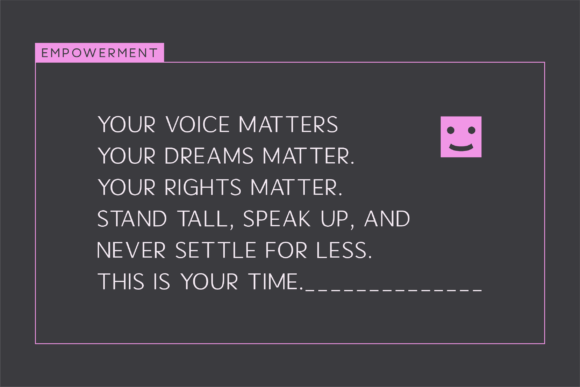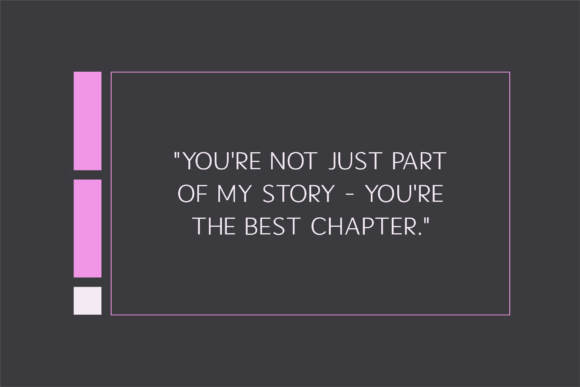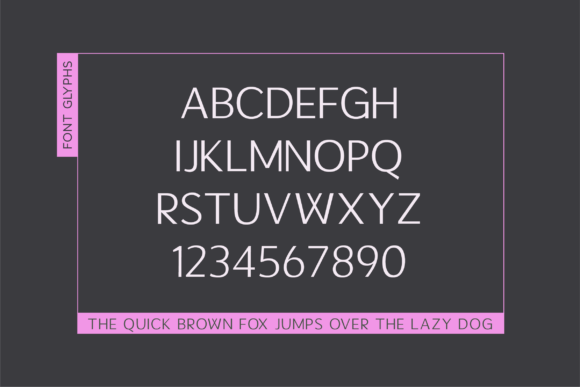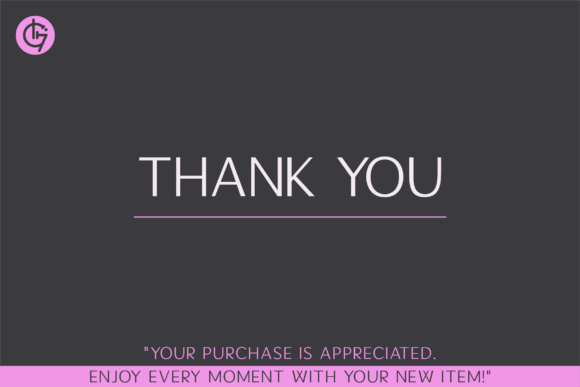
Introducing Debeaute – A Modern Sans Serif Typeface
In the world of typography, a good font can make all the difference in the success of a design project. For designers and crafters looking for a bold, modern, and professional typeface, Debeaute is an excellent choice. This all-caps sans serif font is designed to make a statement with its clean lines, minimalist aesthetic, and strong geometric structure.
Design and Features
Debeaute boasts a bold, all-caps design that exudes strength and authority. Its clean lines and minimalist style make it perfect for projects that require a sense of professionalism and impact. The font’s sharp, crisp edges ensure versatility, making it suitable for various design applications, from digital interfaces to high-end branding.
The key features of Debeaute include:
- All-caps design for maximum impact and emphasis on clarity and readability.
- Modern, minimalist style with a focus on readability, making it ideal for headlines, posters, and anywhere you need your message to stand out.
- Bold, clean lines for a confident and professional look.
- Ideal for branding, logos, packaging, and digital design, making it a versatile font for various projects.
- Perfect for both large-scale headlines and smaller text blocks, providing flexibility in design.
Why Choose Debeaute?
Debeaute is perfect for brands, agencies, and designers looking for a font that can help them make a statement. Its strong geometric structure and bold design ensure that your message is conveyed with confidence and authority. Whether you’re designing a logo, website, or print material, Debeaute is an excellent choice.
The font’s versatility is another significant advantage. Debeaute can be used for a wide range of design applications, including:
- Branding: Create a strong brand identity with Debeaute’s bold and modern design.
- Logos: Design a professional and impactful logo that stands out.
- Packaging: Use Debeaute to create eye-catching packaging that grabs attention.
- Digital Design: Debeaute is perfect for digital interfaces, including websites, mobile apps, and social media graphics.
Tips for Using Debeaute Effectively
To get the most out of Debeaute, consider the following tips:
- Use it for headlines: Debeaute is perfect for large-scale headlines and titles, making it ideal for grabbing attention.
- Pair it with a serif font: Combine Debeaute with a serif font for body text to create a visually appealing contrast.
- Experiment with colors: Debeaute looks great in bold colors, so don’t be afraid to experiment and find the perfect hue for your design.
- Keep it simple: Debeaute’s minimalist design makes it perfect for simple, yet effective designs.
In conclusion, Debeaute is a modern sans serif typeface that is perfect for designers and crafters looking for a bold, professional, and versatile font. Its clean lines, minimalist aesthetic, and strong geometric structure make it ideal for a wide range of design applications. Whether you’re designing a logo, website, or print material, Debeaute is an excellent choice. With its all-caps design and focus on readability, Debeaute is sure to make a statement and help you achieve your design goals.